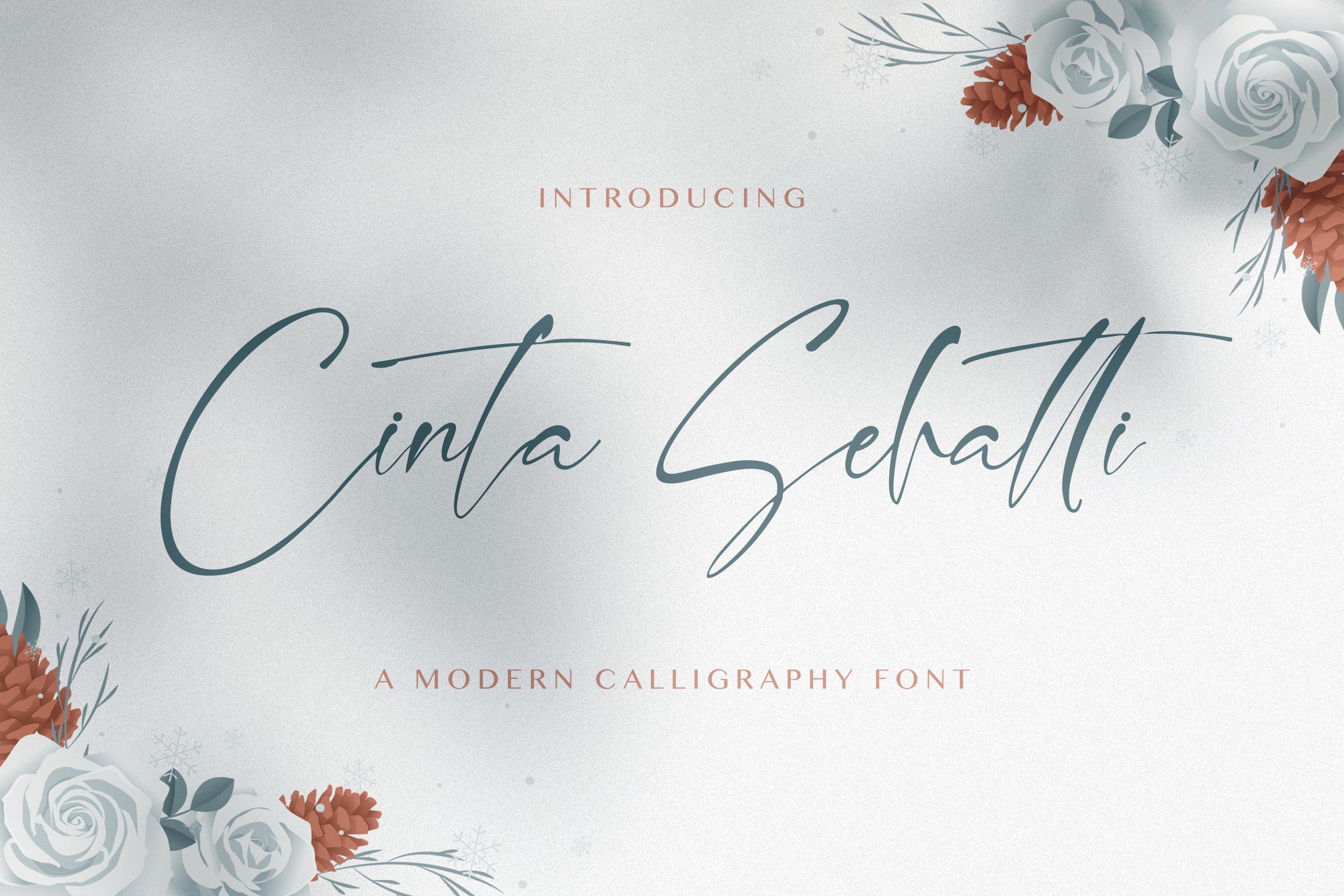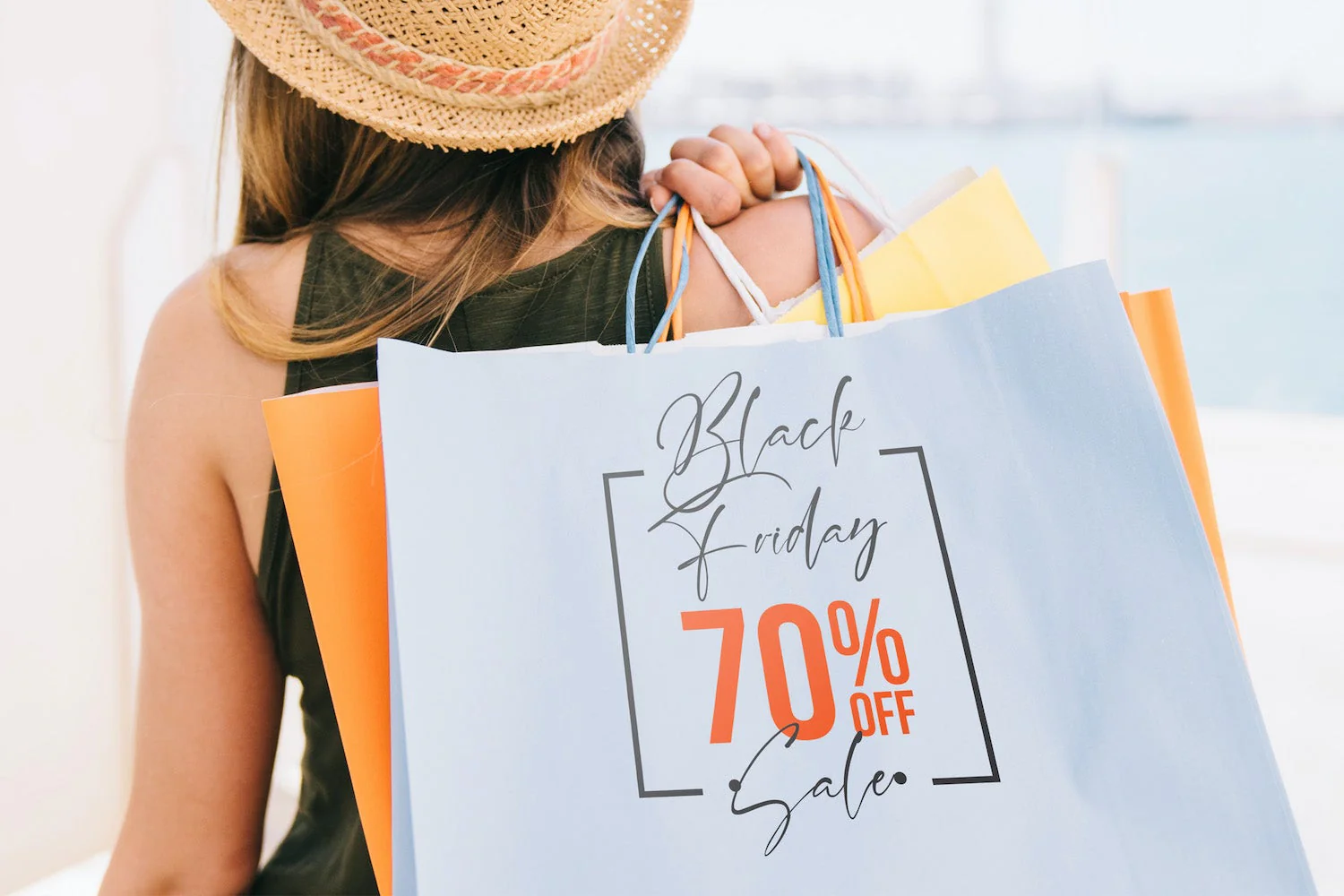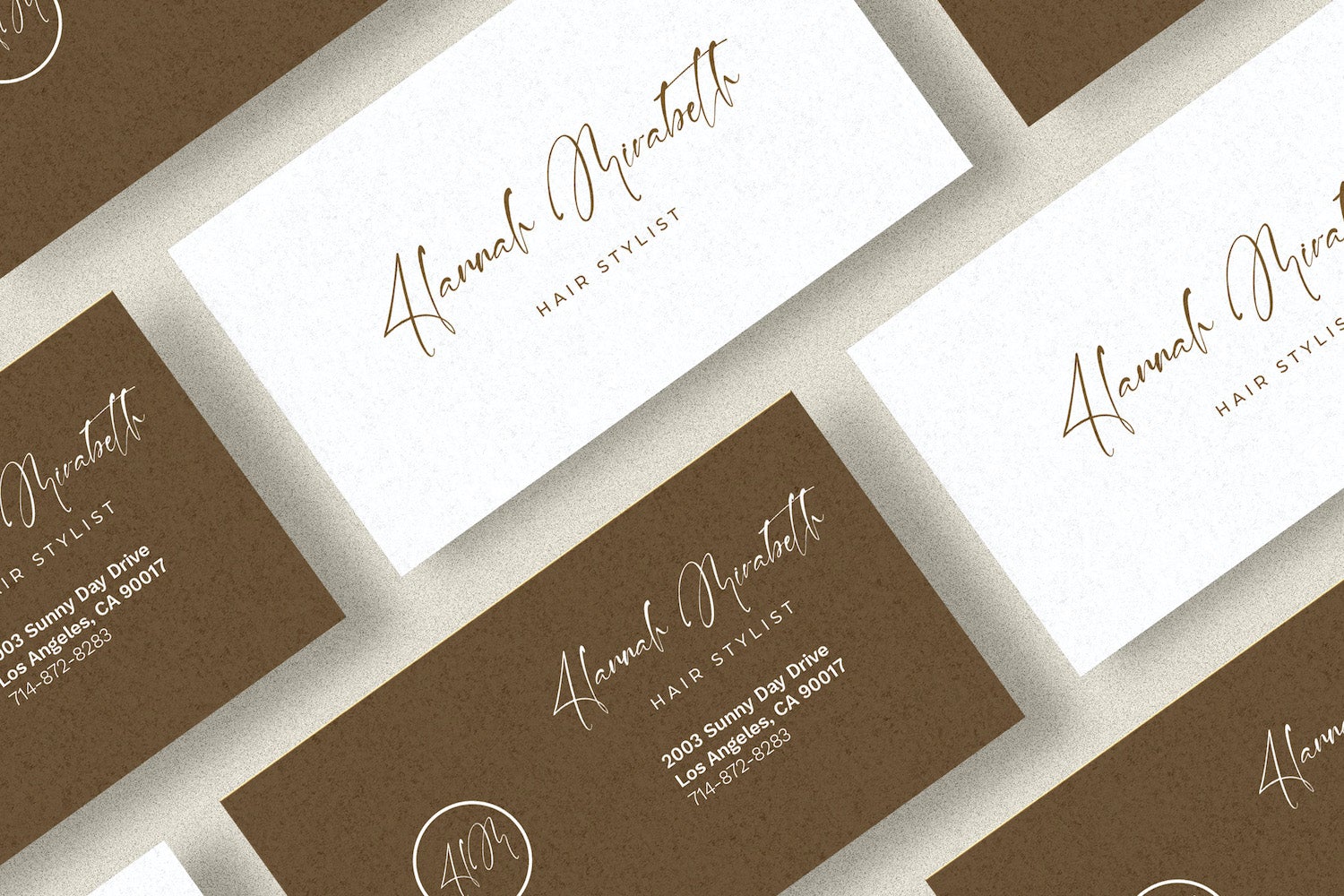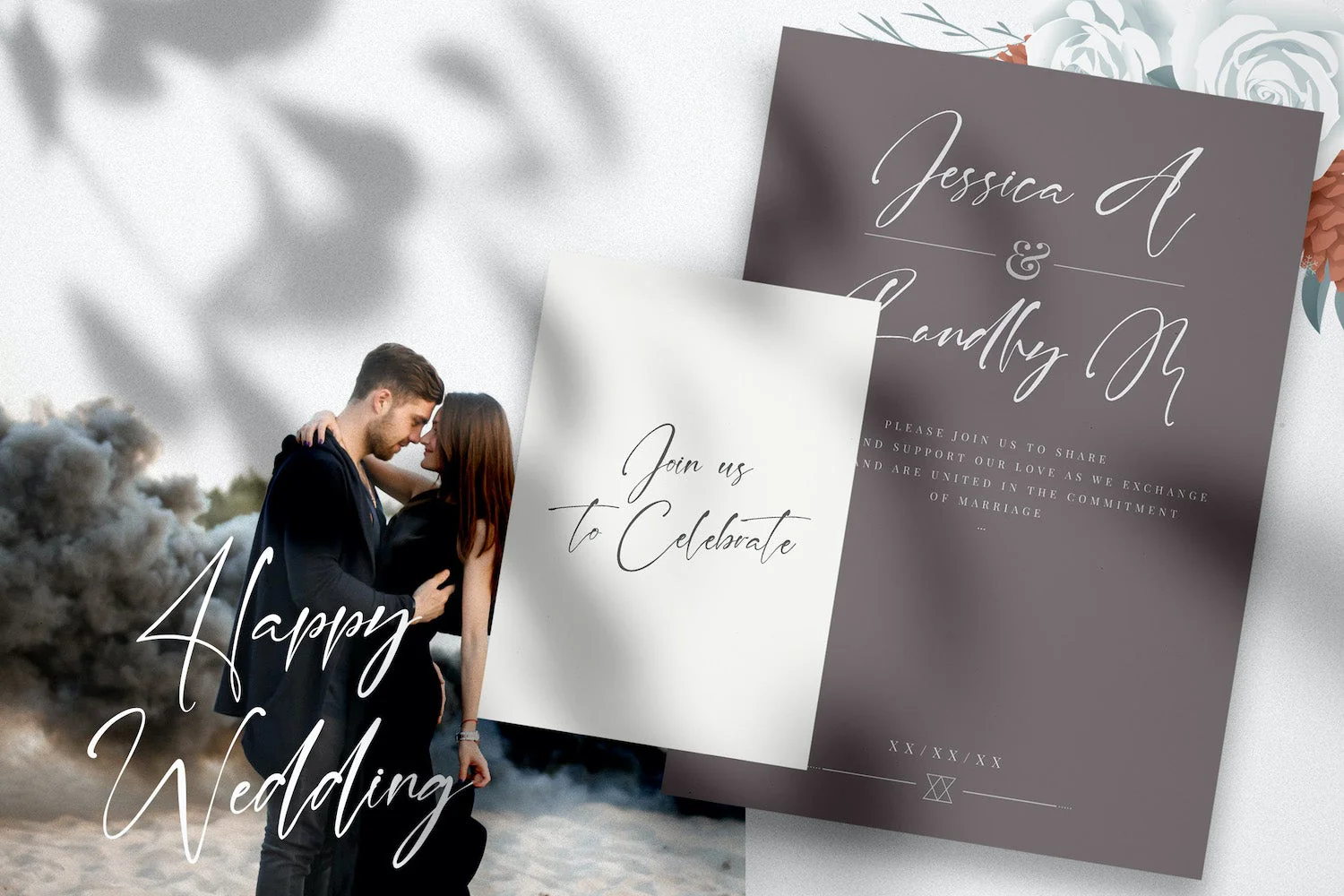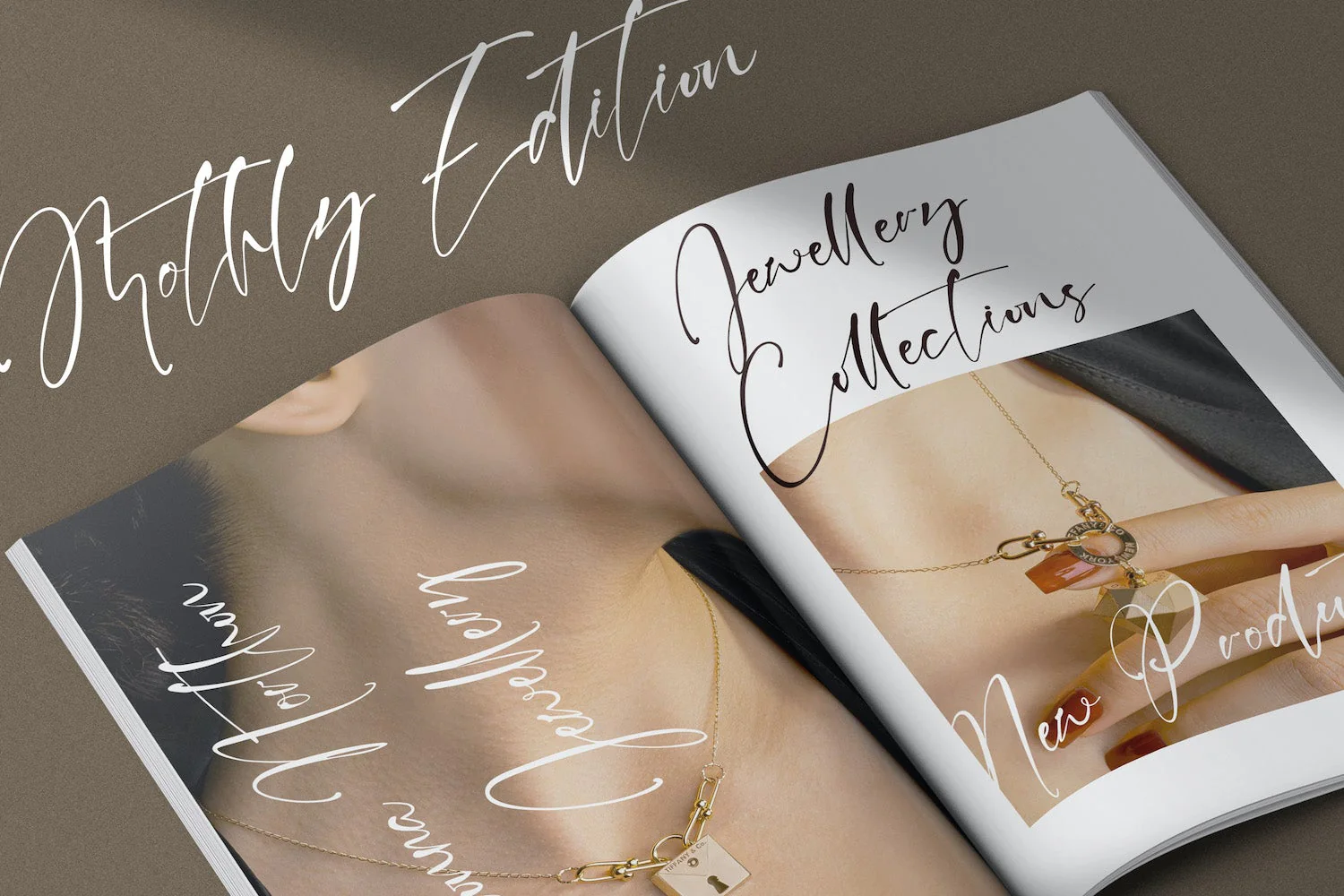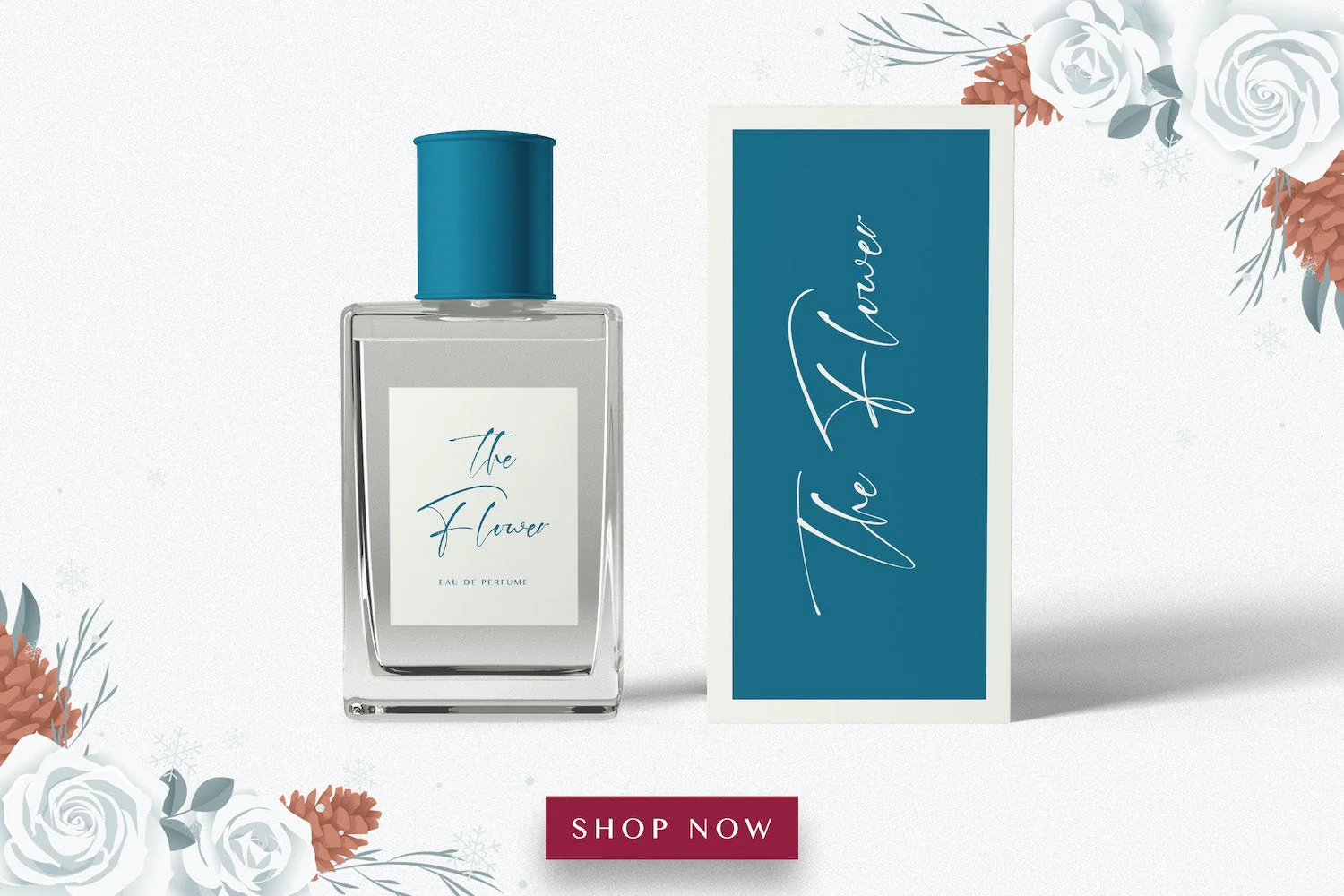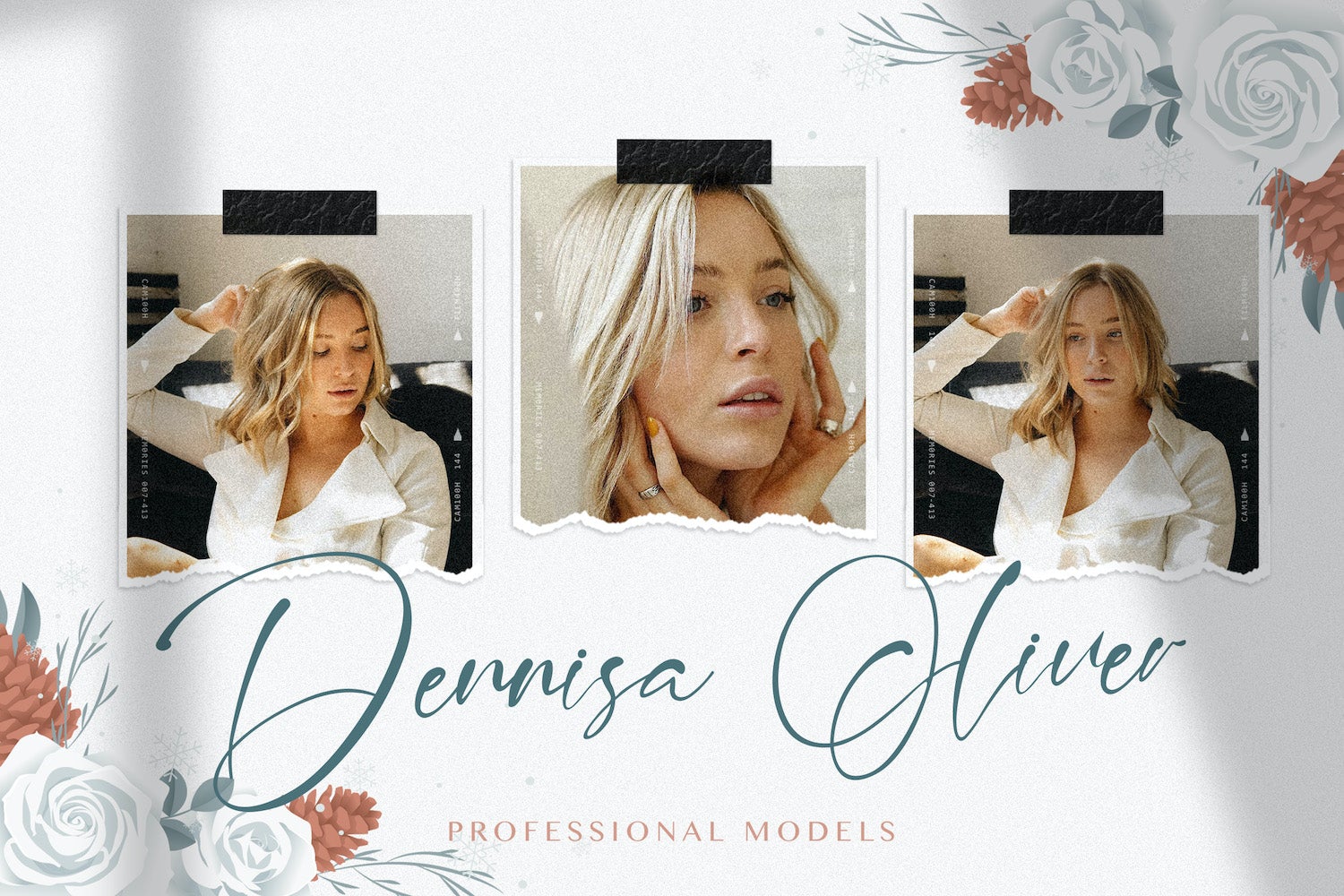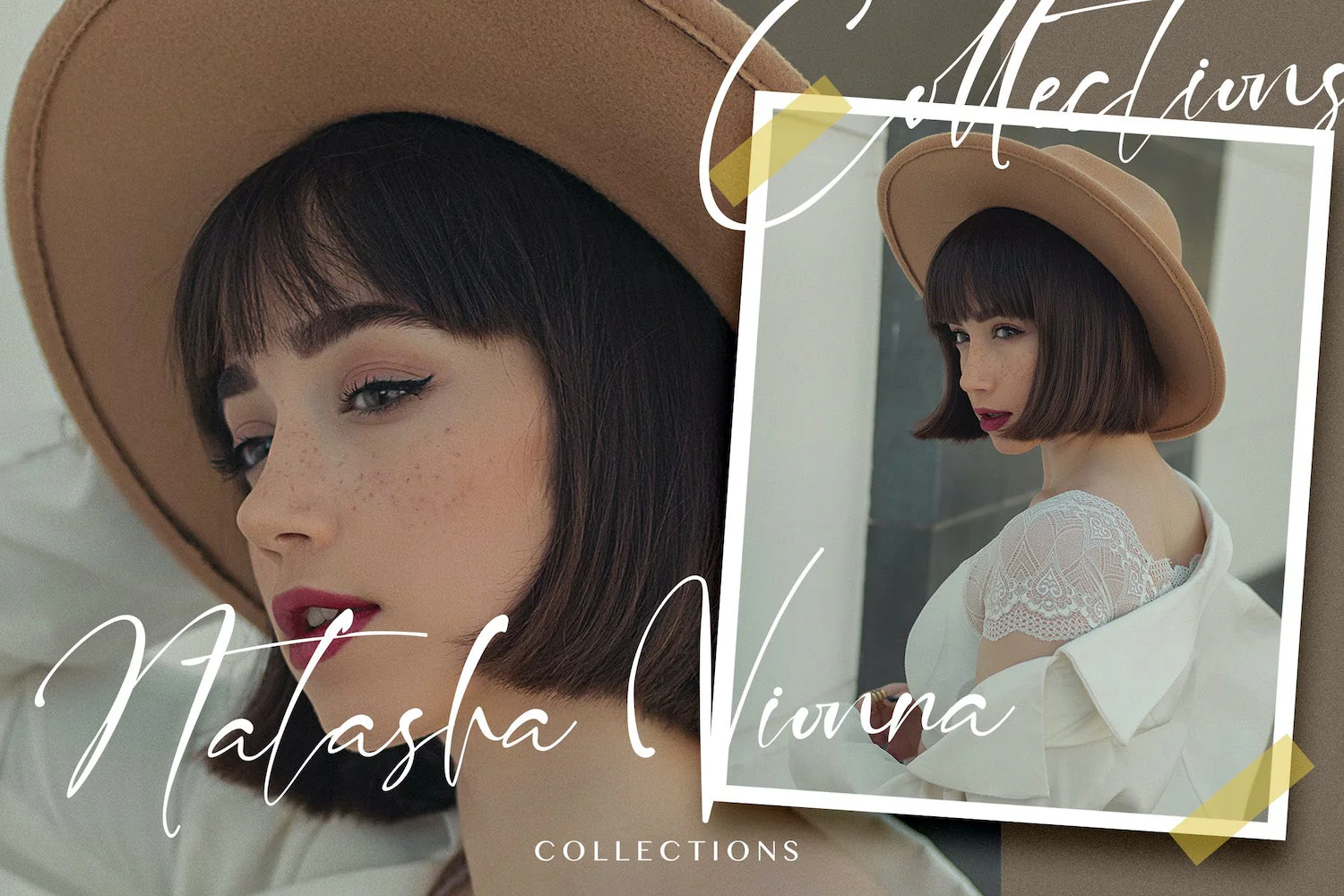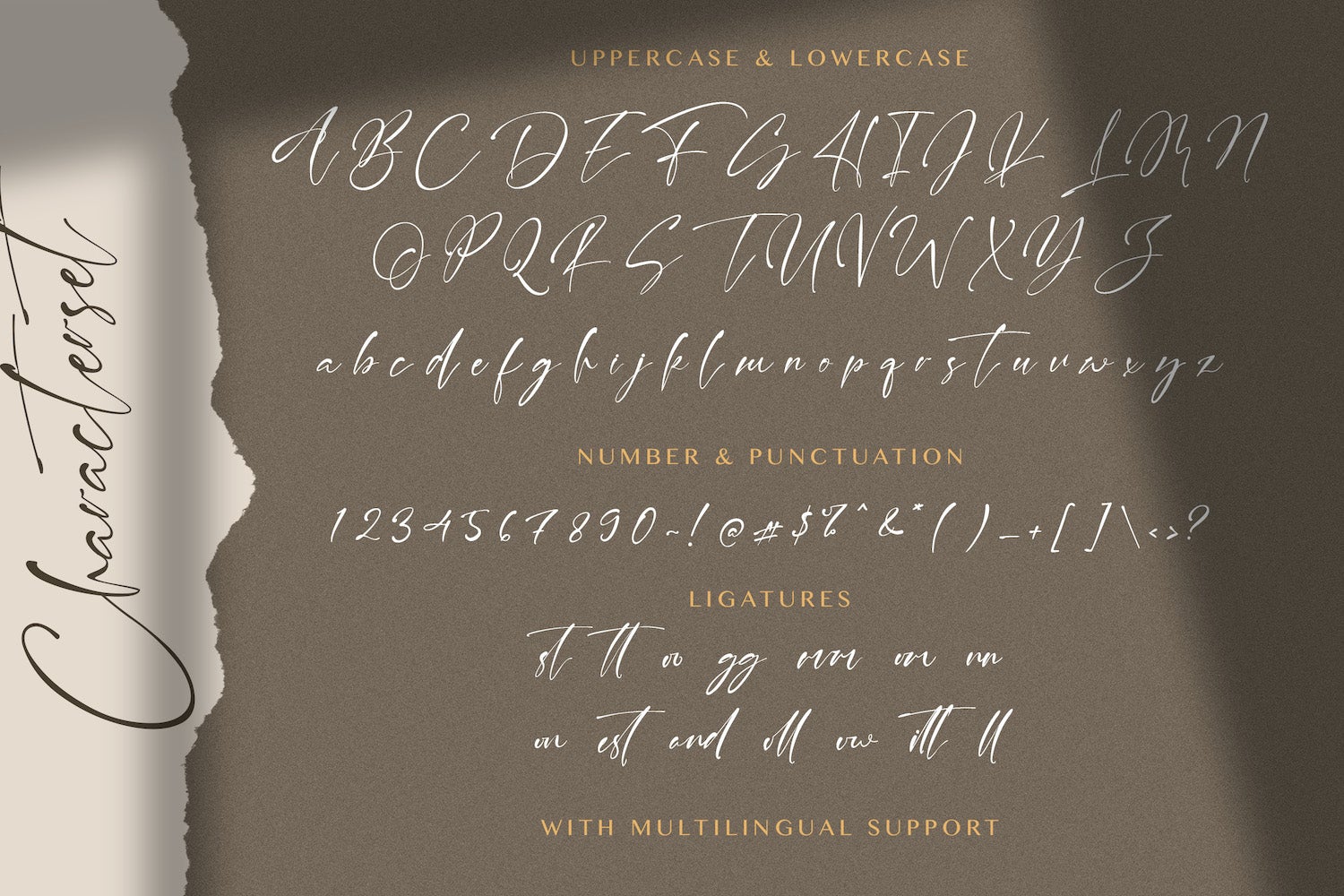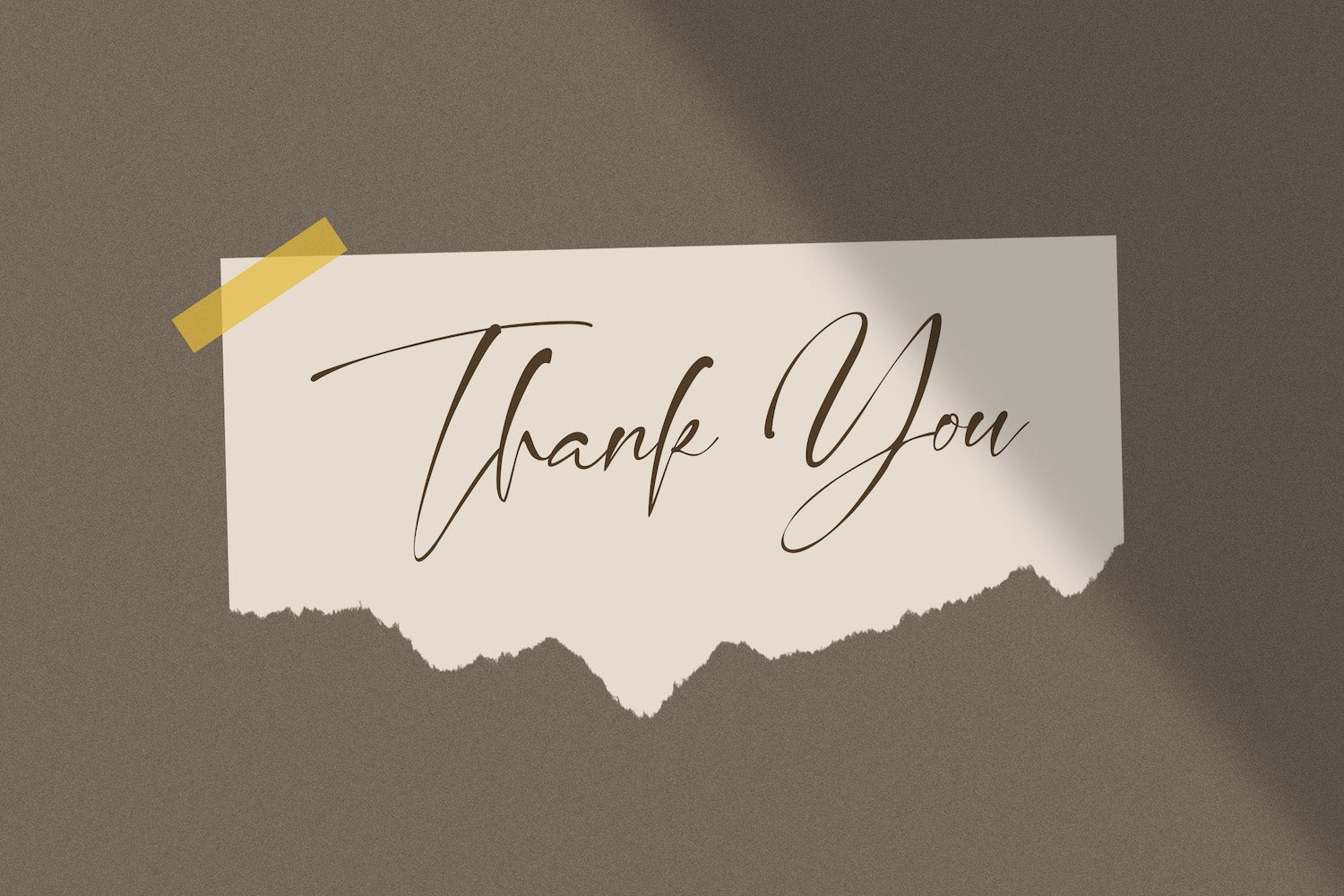
Cinta Sehatti - Calligraphy Font
Introducing Cinta Sehatti - Calligraphy Script Font
Cinta Sehatti is an exquisite handwritten font, masterfully designed to become a true favorite. It maintains its classy calligraphic influences while feeling contemporary and fresh. Fall in love with it and bring your projects to the highest levels!
Introducing Cinta Sehatti - Calligraphy Script Font
Cinta Sehatti is an exquisite handwritten font, masterfully designed to become a true favorite. It maintains its classy calligraphic influences while feeling contemporary and fresh. Fall in love with it and bring your projects to the highest levels!